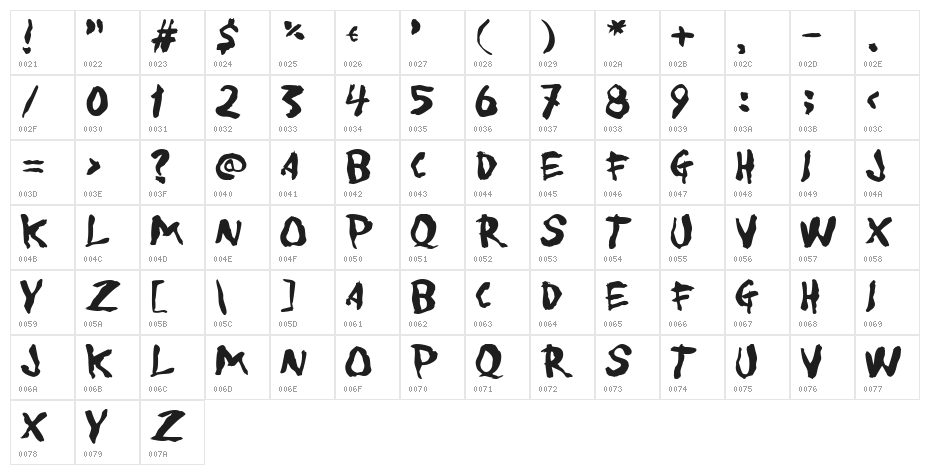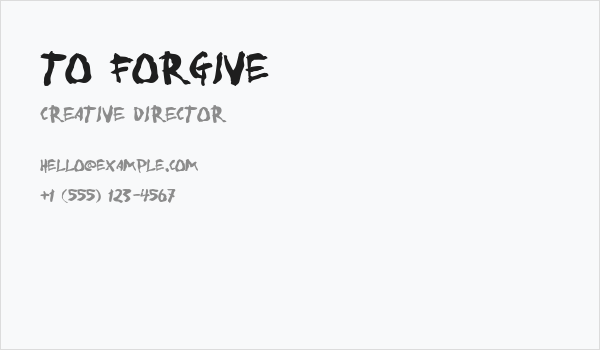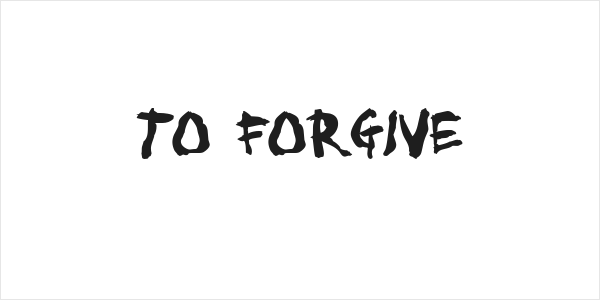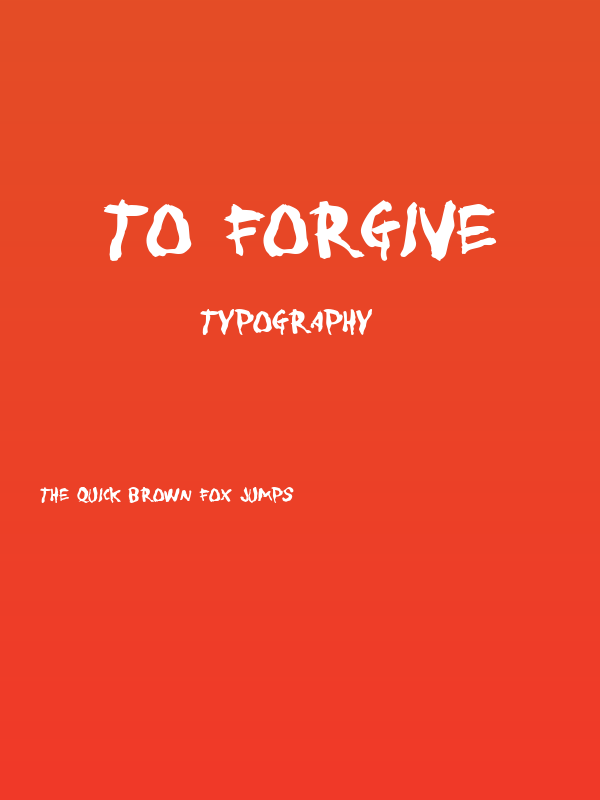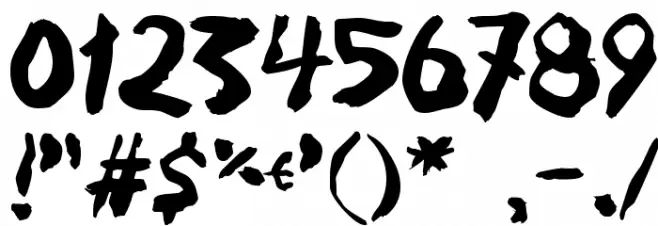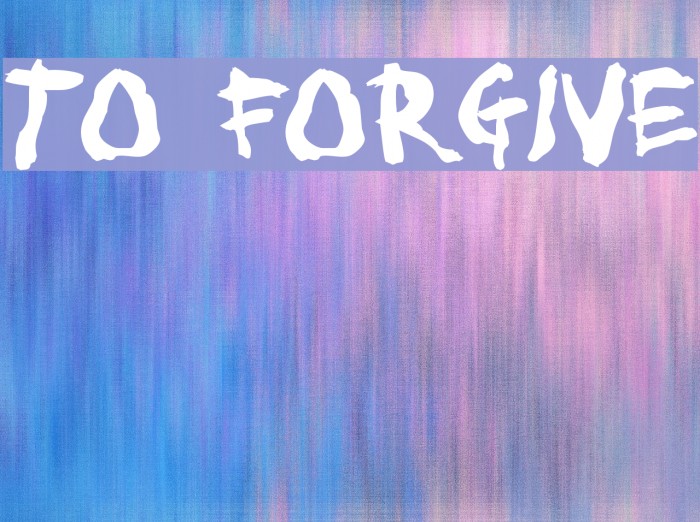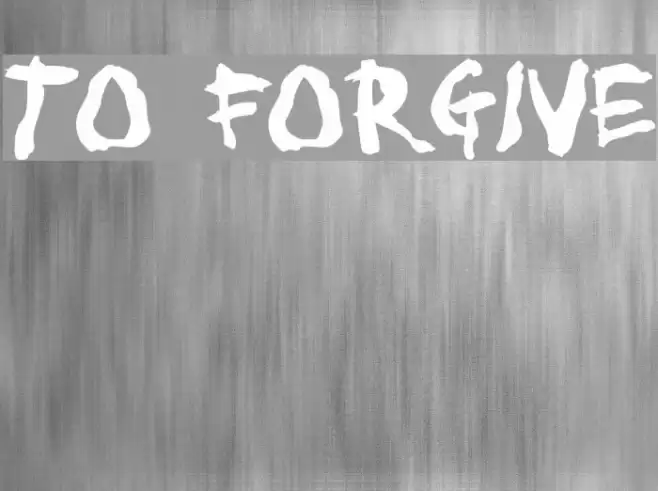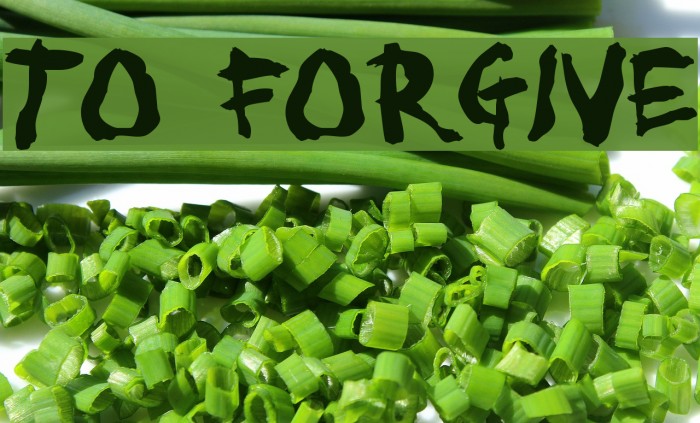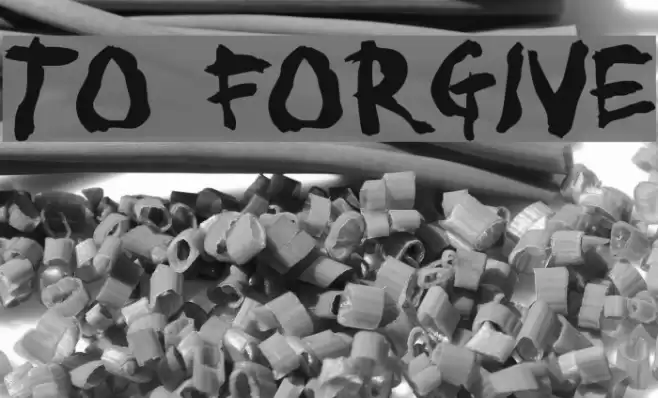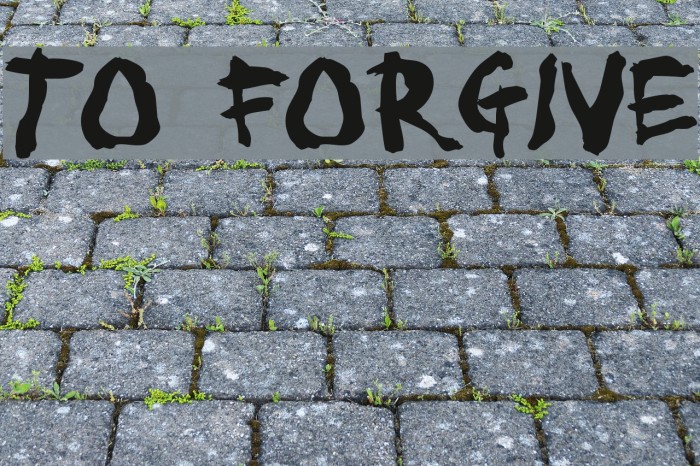
To forgive Font
To forgive Description
This font features a bold and expressive style, characterized by its brush-like strokes and irregular edges. The letters exhibit a dynamic and energetic appearance, with varying thicknesses that create a sense of movement. The uppercase and lowercase letters maintain a consistent style, while the numerals and special characters complement the overall aesthetic. The font's rough texture and hand-drawn quality give it a unique and artistic flair, making it suitable for projects that require a personal touch or a bold statement.
| Use Case | Headlines, Posters, Branding |
| Proposed Projects | Ideal for artistic projects, posters, album covers, and branding that requires a bold and expressive touch. |